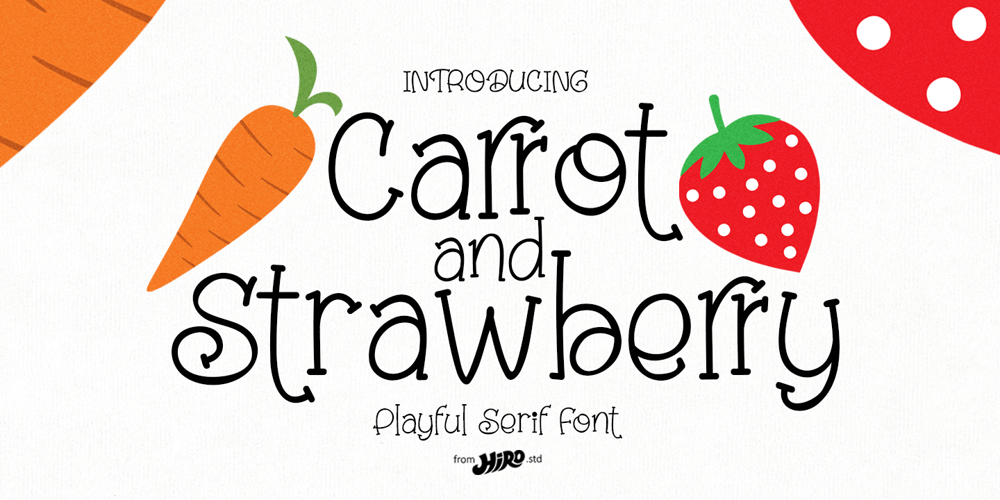
Carrot and Strawberry
Carrot and Strawberry font
Carrot and Strawberry Font Family was designed by Chairul Ashar and published by HIRO.std. Carrot and Strawberry contains 1 styles and family package options. Carrot and Strawberry is a Playful Serif Font.This font describes about fun, cute, easy going, and easy to use.FEATURES- Support Opentype Features- Support Ligatures- Numbering and Punctuations- PUA Encoded Characters- Multilingual Support- Works on PC or MacUSECarrot and Strawberry works great in craft, any product packaging, book, logotype, magazine, editorial, quotes and any projects that need all about cute and fun taste.Enjoy using!Thanks.HIRO.std